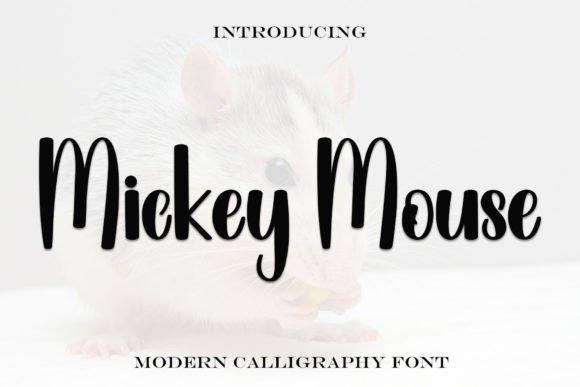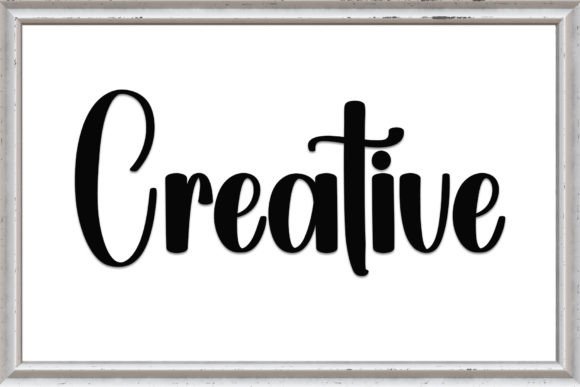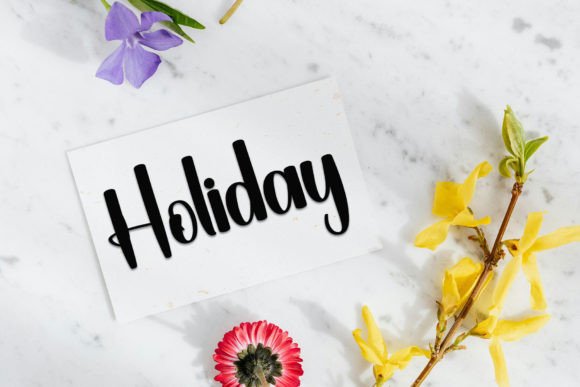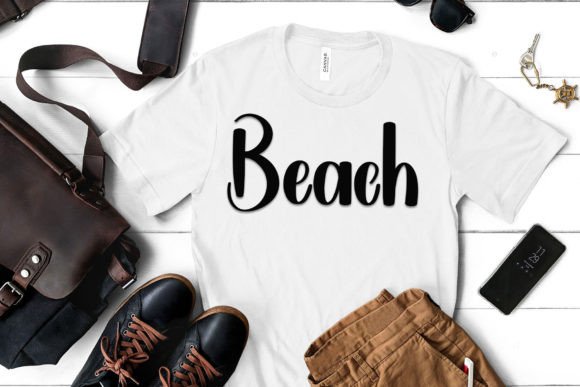
Mickey Mouse Font
About the Mickey Mouse Font
Add a touch of class to your work with the Mickey Mouse Font, a truly exceptional typeface. Mickey Mouse font has a bold, playful handwritten style. It has thick, rounded letters that look like they were drawn by hand. The font feels fun and lively, perfect for giving a cheerful and friendly vibe.
This font shines in headlines, short titles, and playful branding projects where a hand-drawn, approachable feel is desired. It’s ideal for children’s products, casual apparel, or invitations to events with a fun, lighthearted atmosphere. However, its informal nature makes it unsuitable for body text, lengthy paragraphs, or applications requiring high readability, such as user interfaces.
Pairing Mickey Mouse Font with a clean sans-serif like Open Sans for body copy provides excellent contrast and readability. For a more sophisticated feel, consider a classic serif font such as Garamond or a slightly more geometric sans-serif like Futura. These pairings allow the playful nature of Mickey Mouse Font to stand out while maintaining visual balance.
Its core personality is undeniably cheerful and friendly, conveying a sense of youthful energy and approachability. Avoid using it for projects requiring seriousness or sophistication.